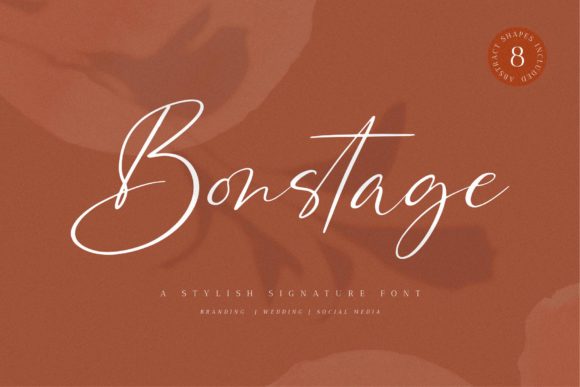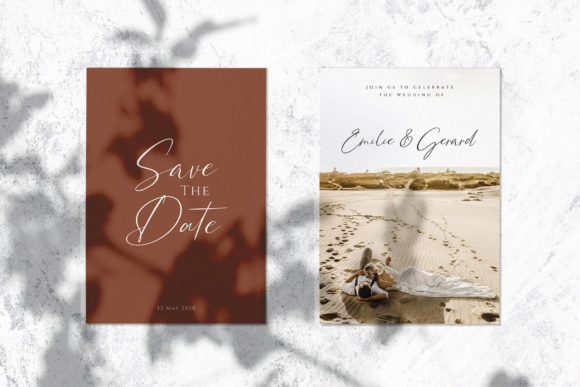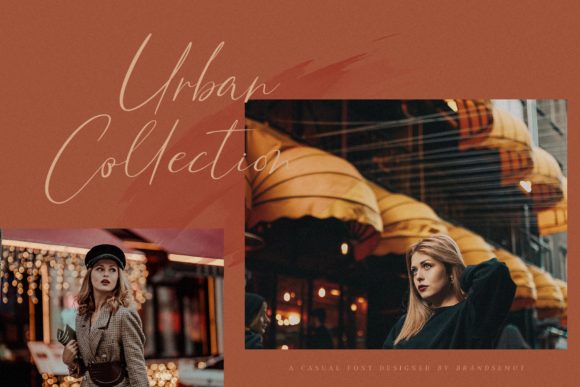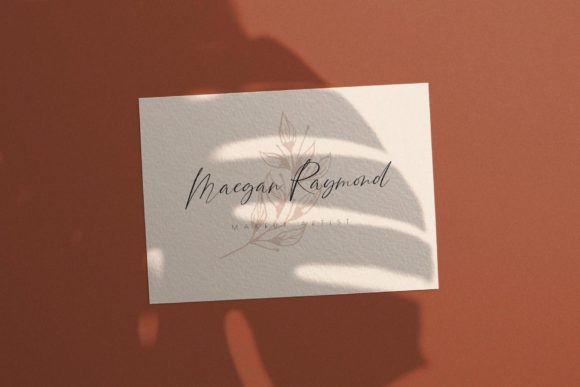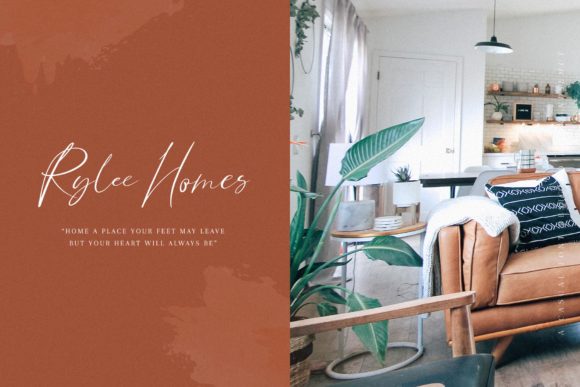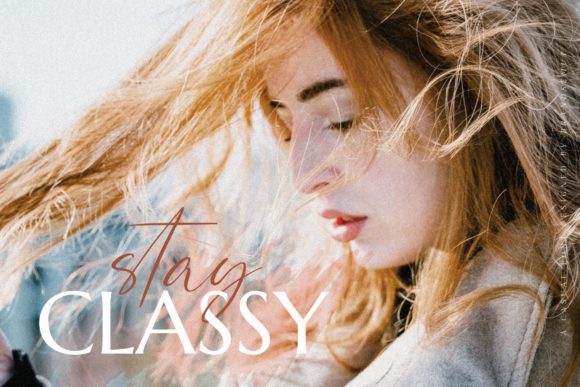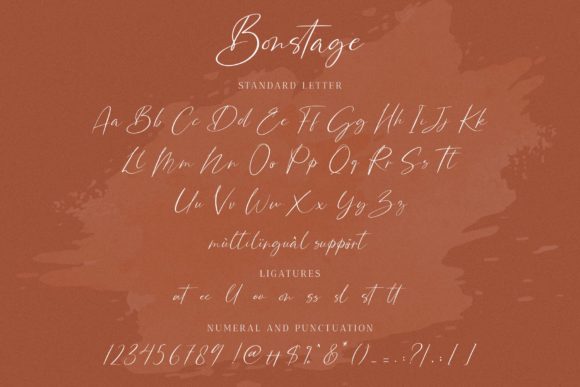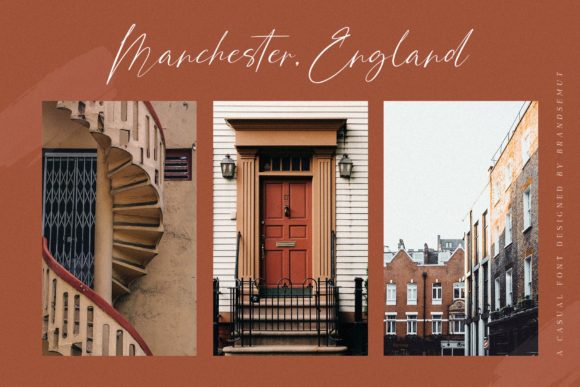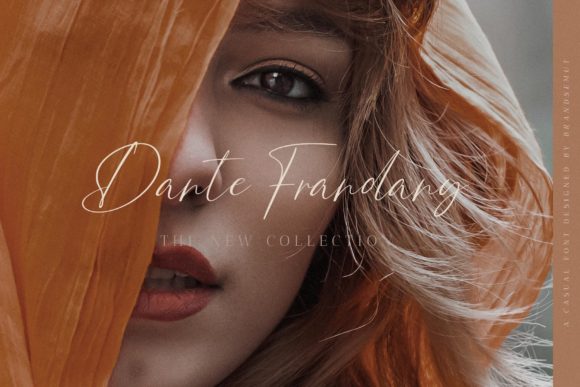
Bonstage Font
About Bonstage Font
Bonstage is inspired by classic typography and brings amazing abstract shapes extras. It features an incredibly classic style, while still keeping a friendly feel. Bonstage is the perfect font for making original and outstanding designs.